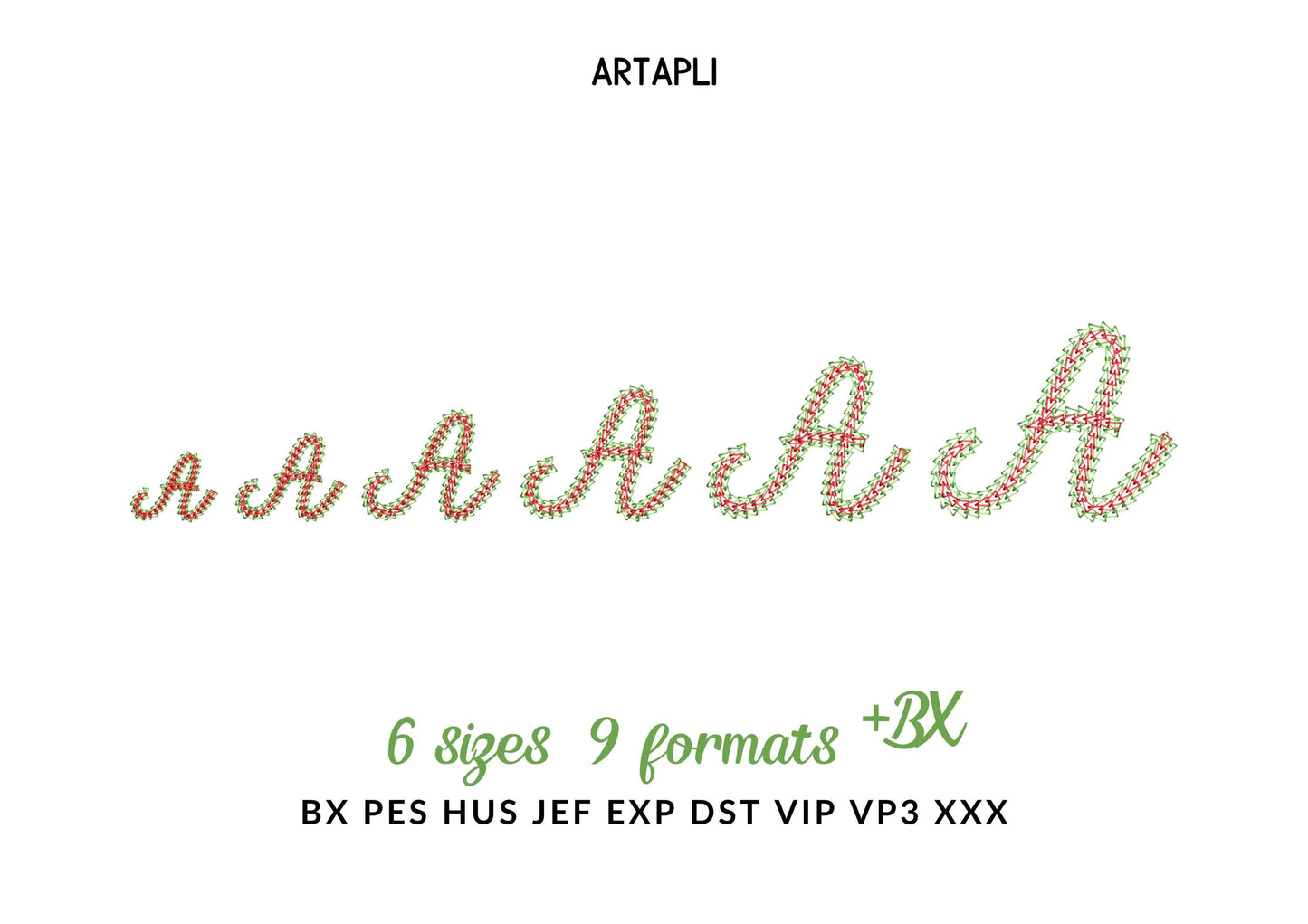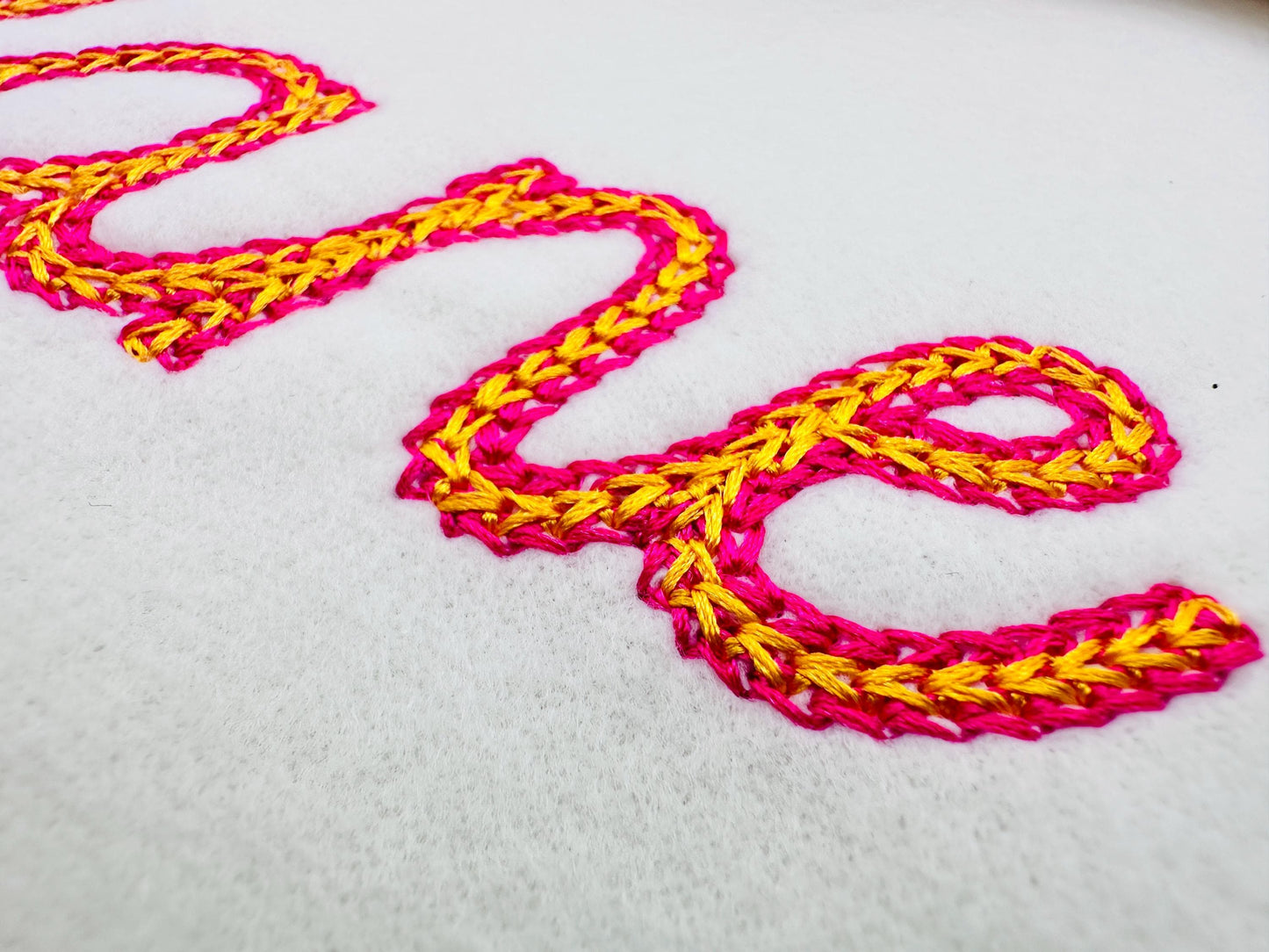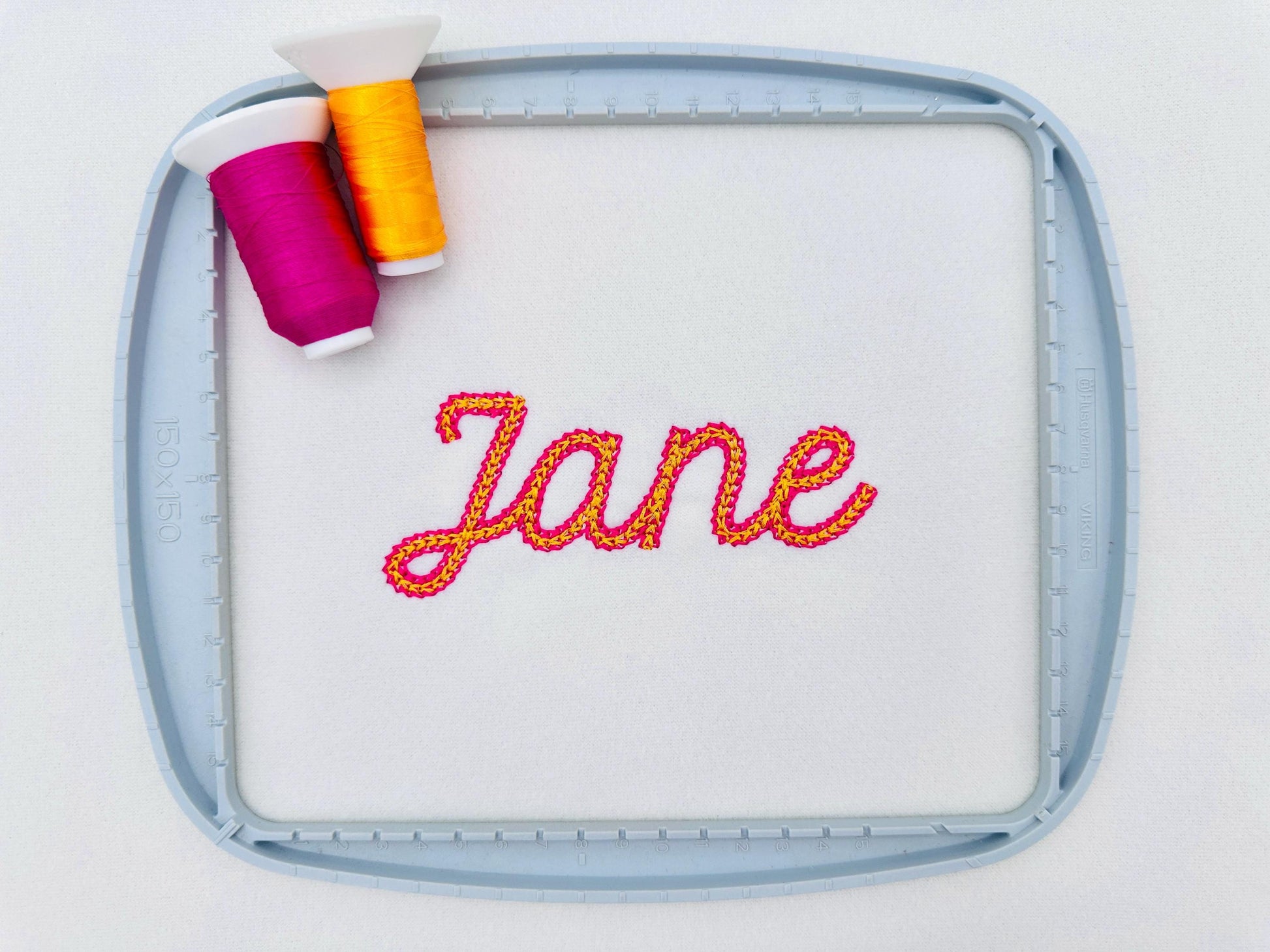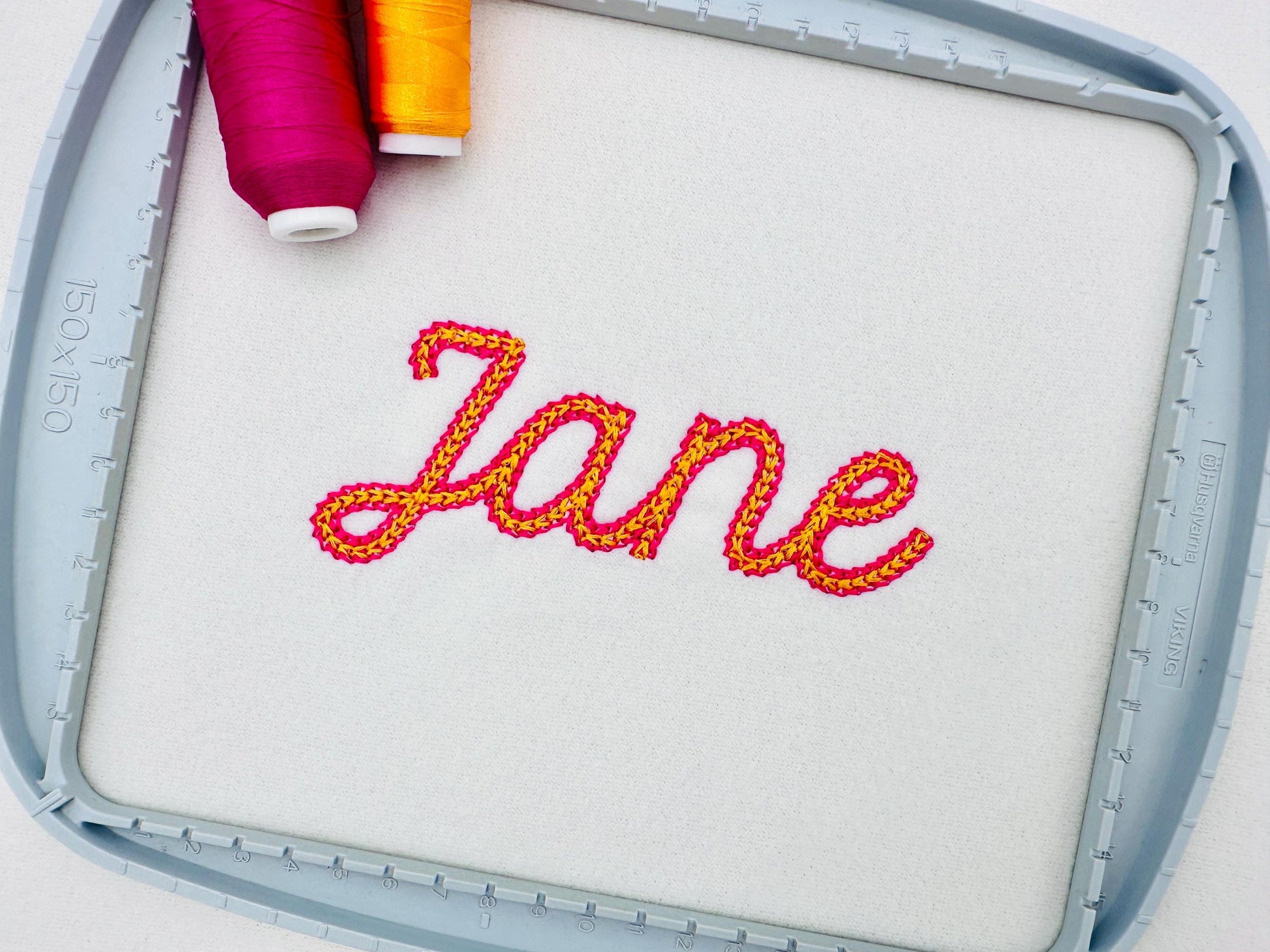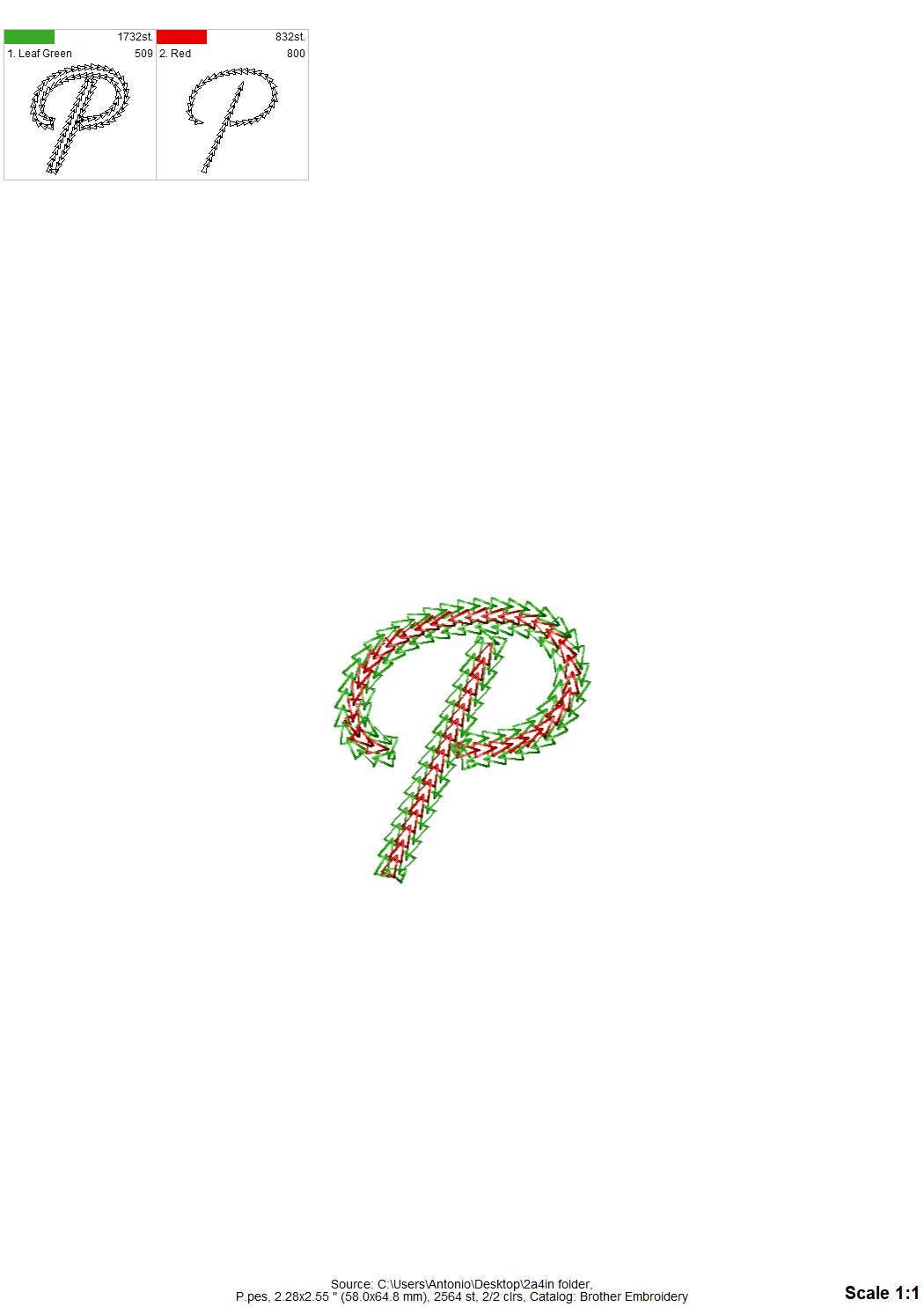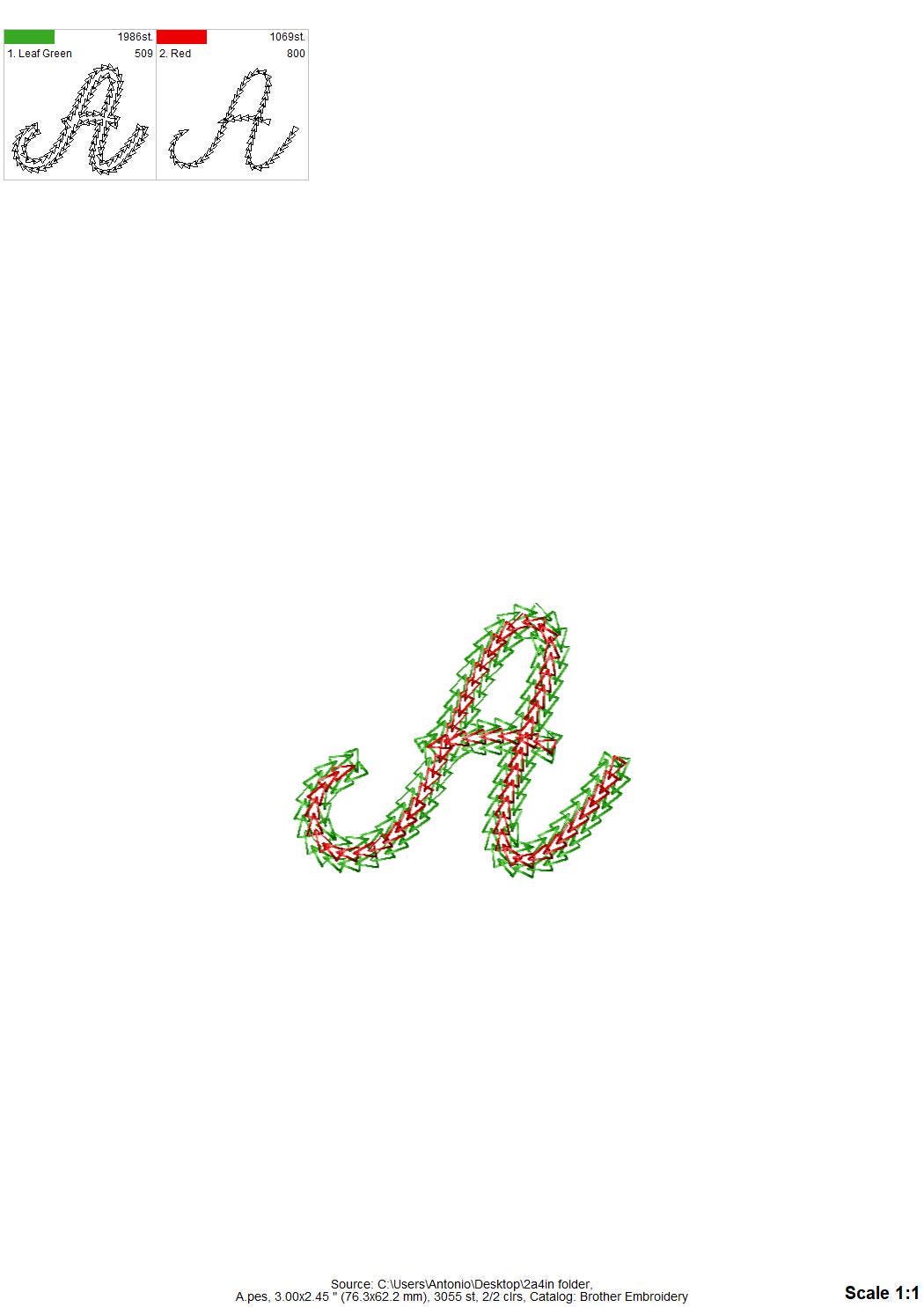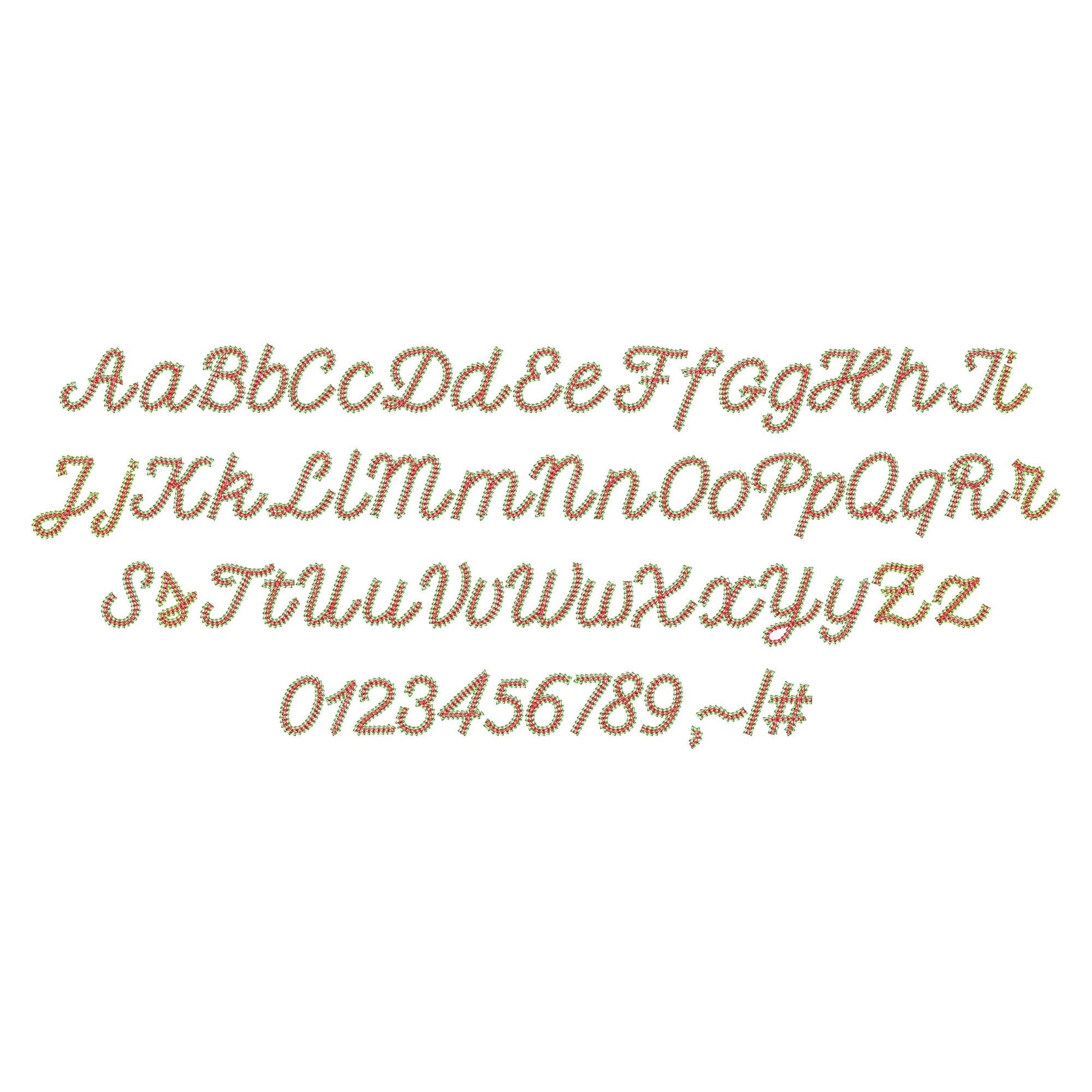
Or click to open the linkA two-color chain stitch script font. Sweet for kids' names, monograms and small gifts.
The letters come in six sizes: 1, 1.3, 1.7, 2, 2.4 and 3 inches. Each letter is stitched in two colors with a chain stitch. Includes uppercase and lowercase letters A to Z, numbers 0 to 9 and punctuation.